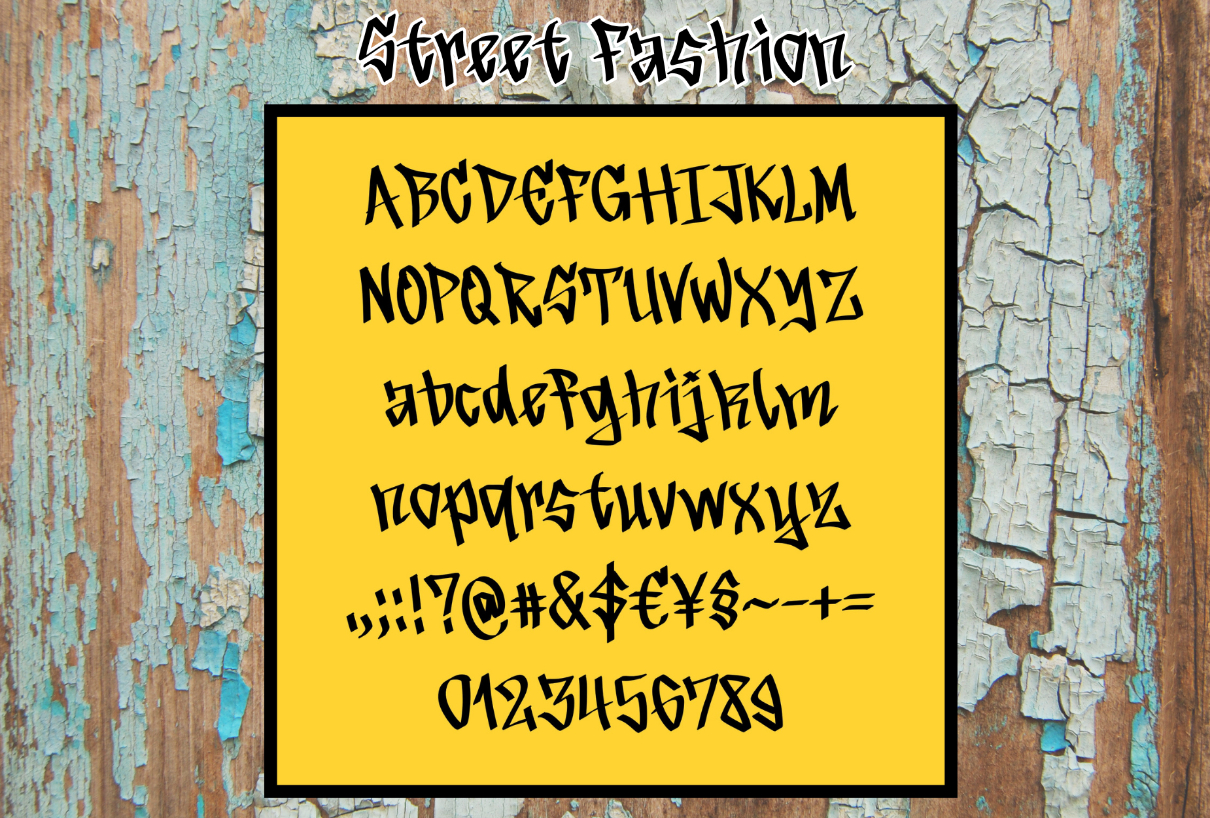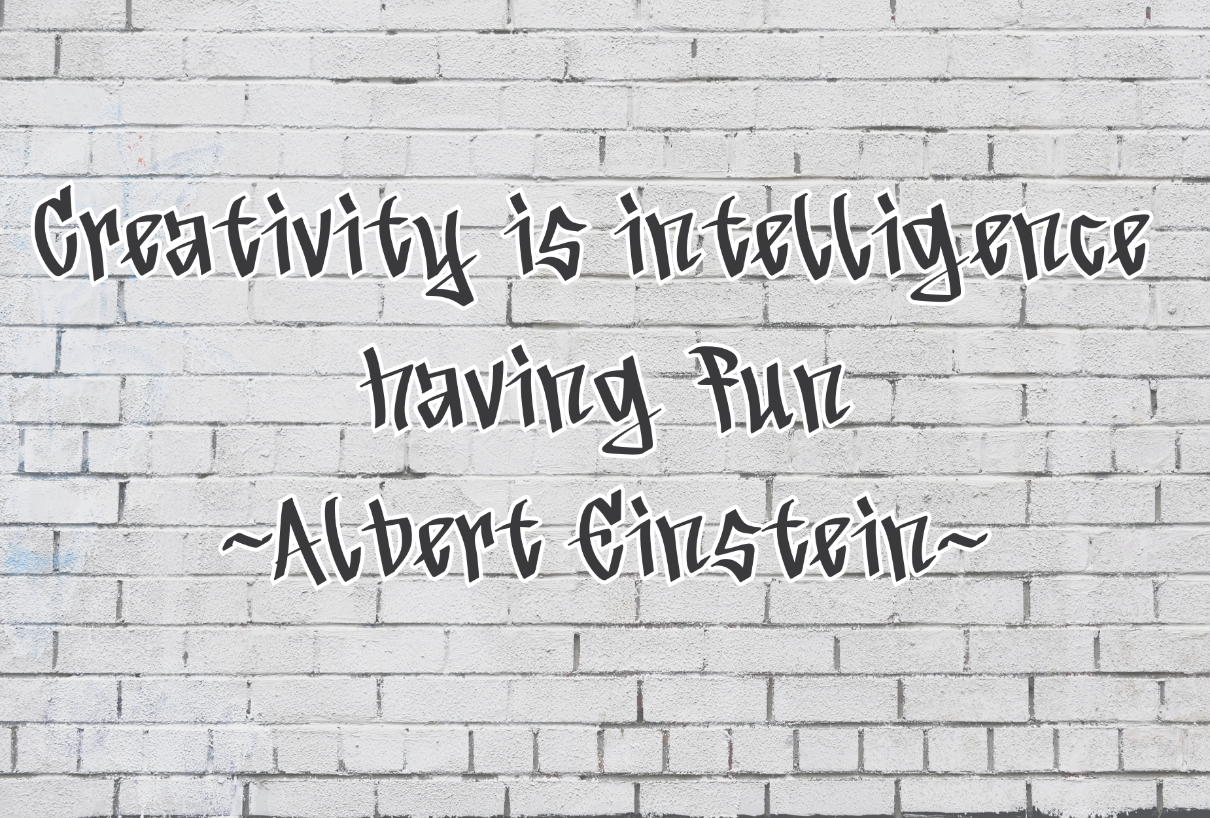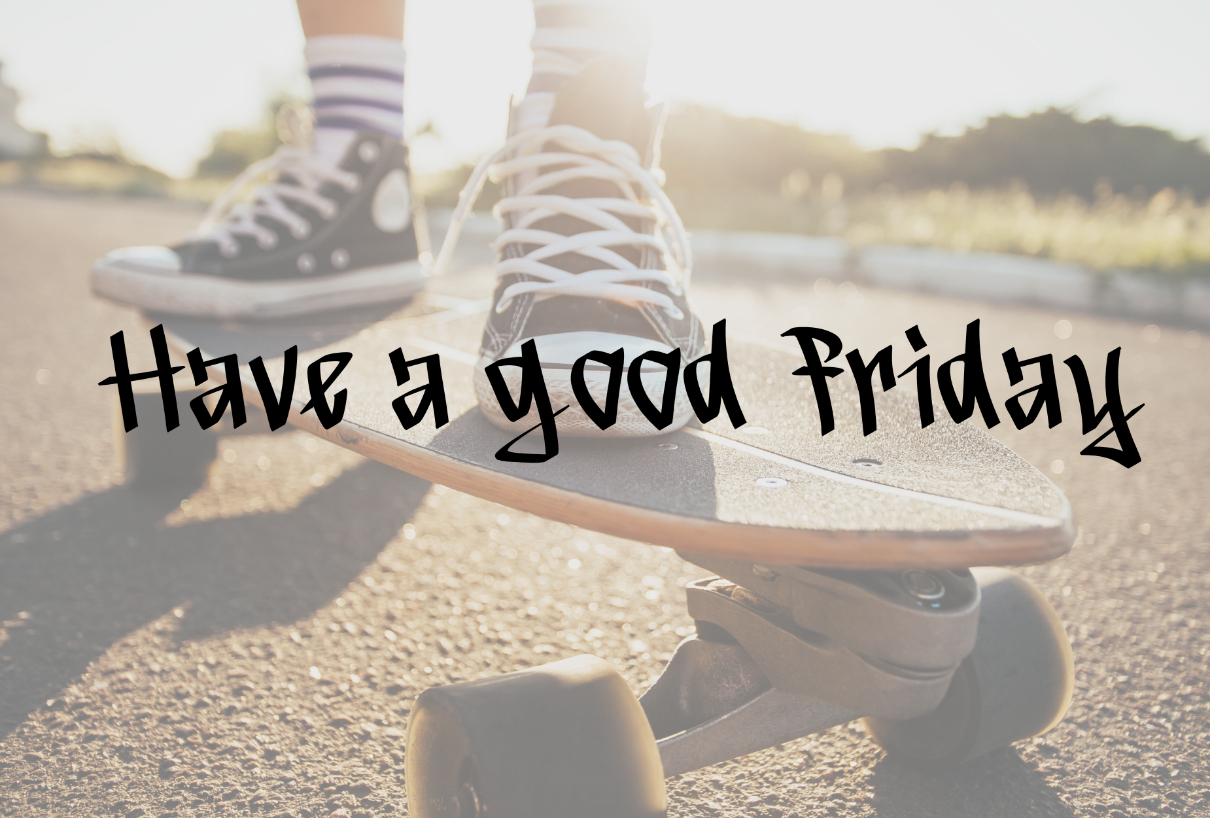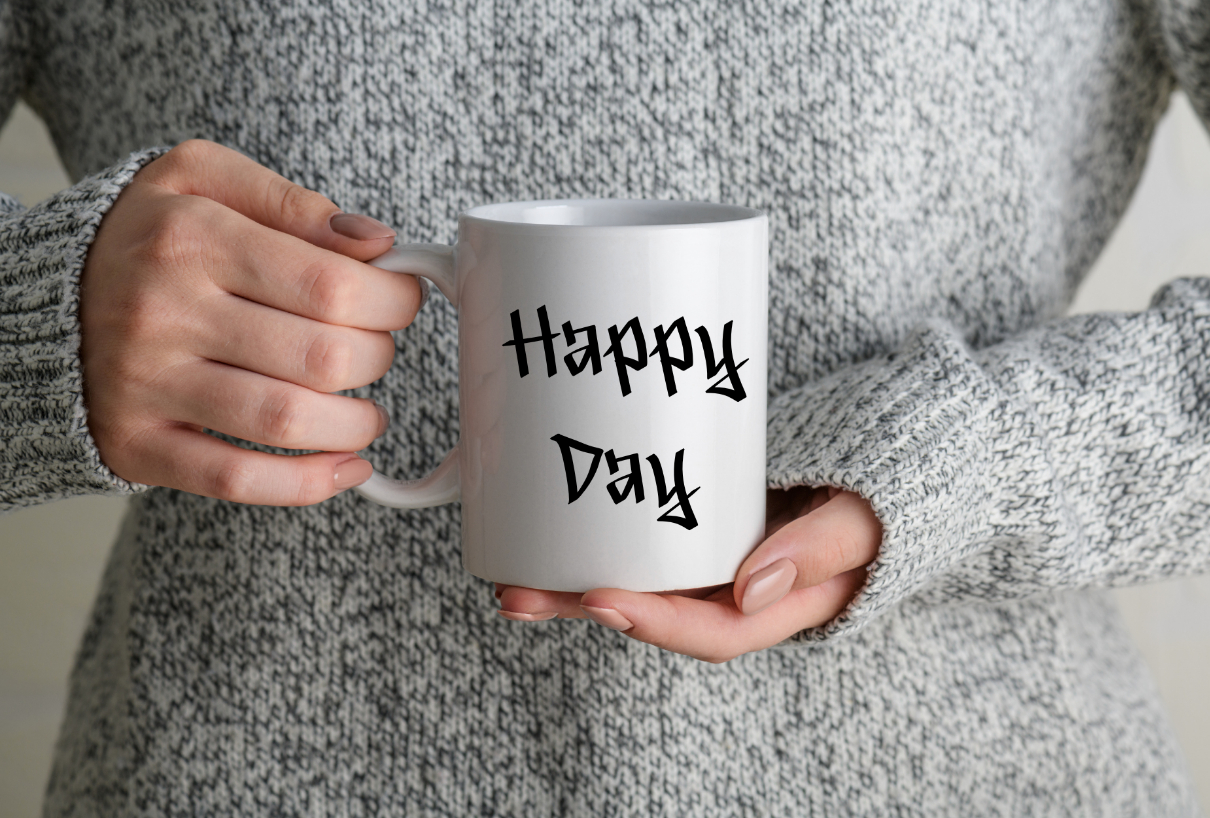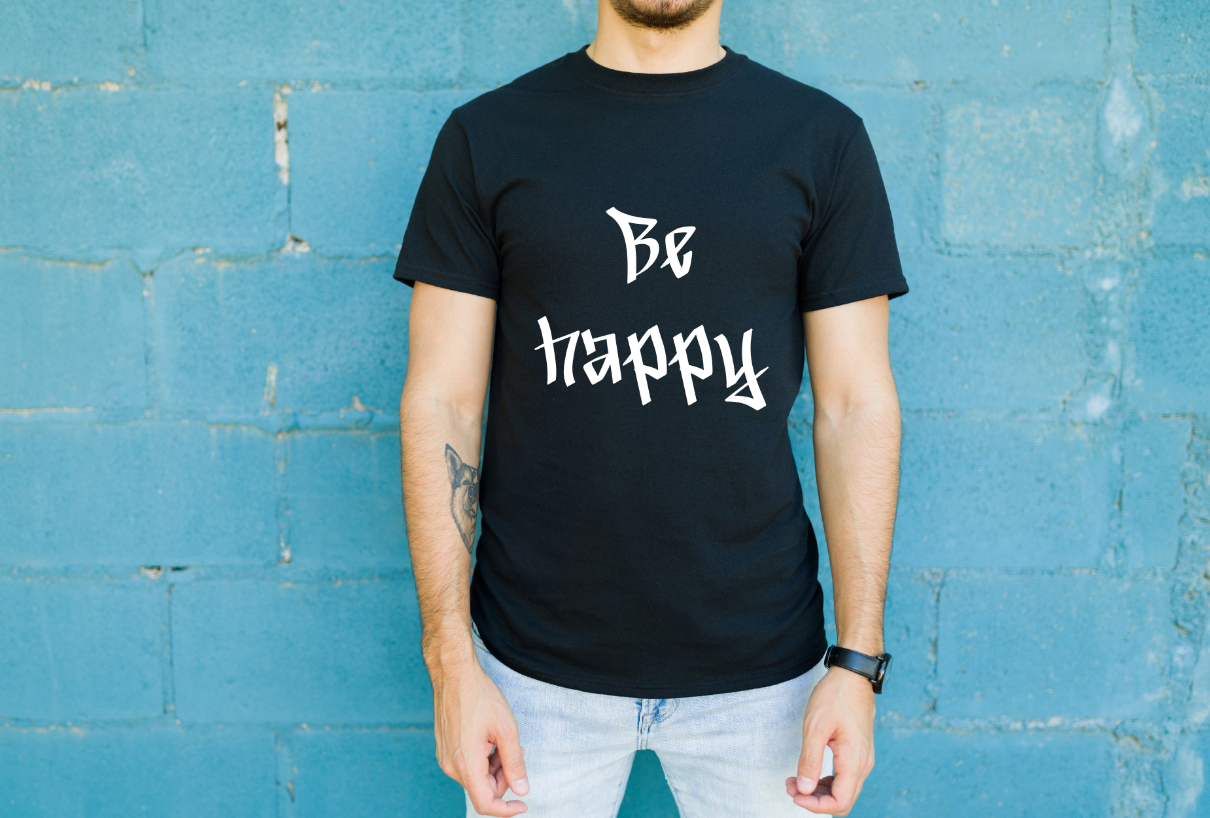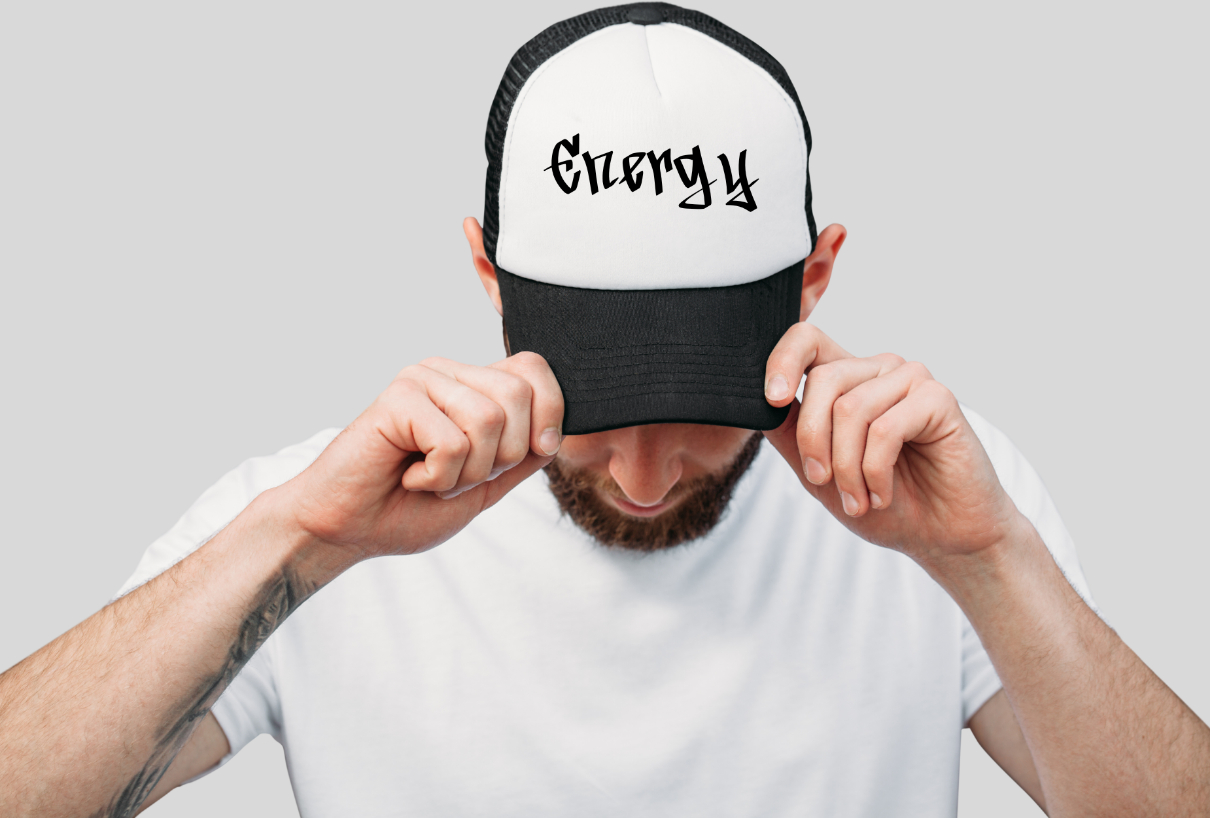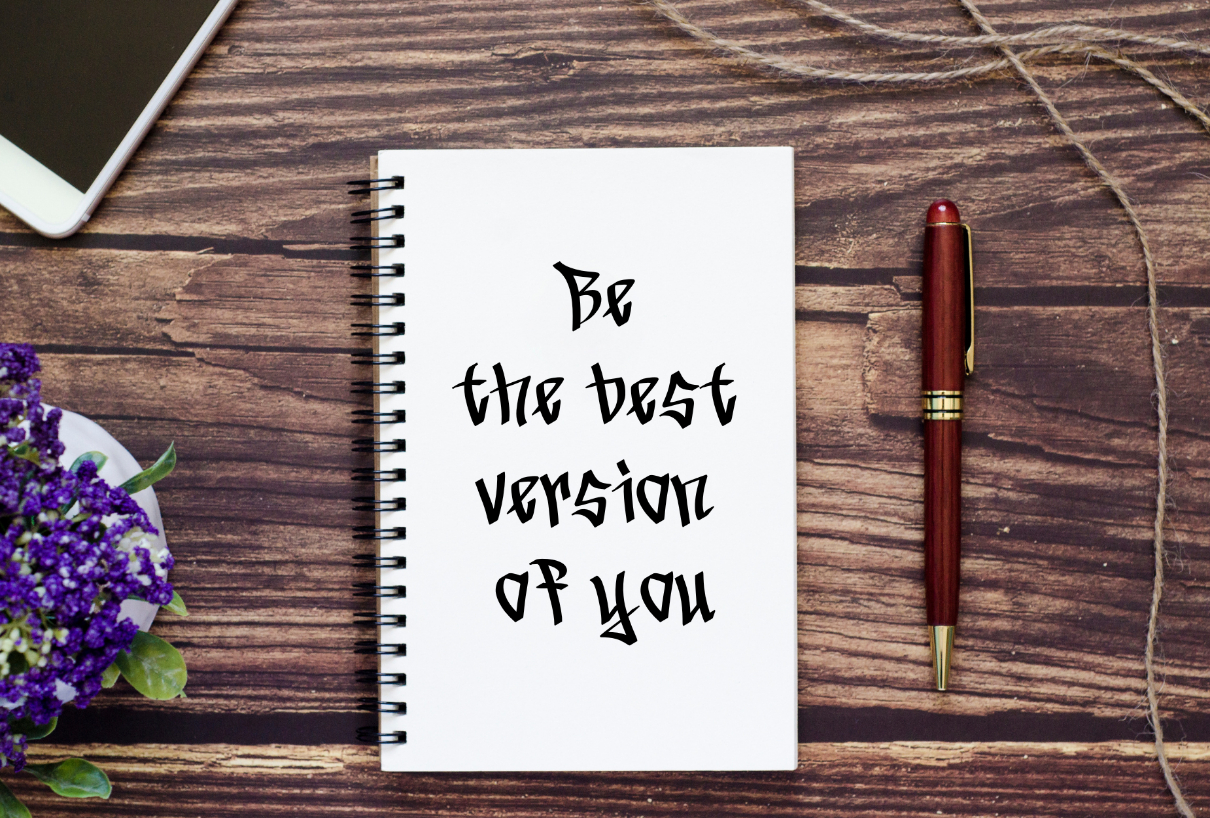
Street Fashion Font
About Street Fashion Font
Street Fashion is a cool and trendy blackletter font. It is suitable for use in graffiti, street art, and can also be used to make cool t-shirts, mugs, pillows, and key chains.